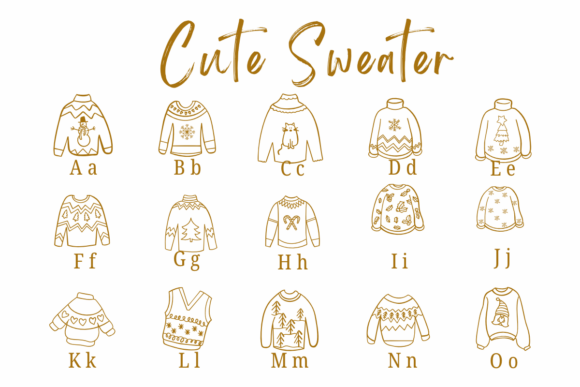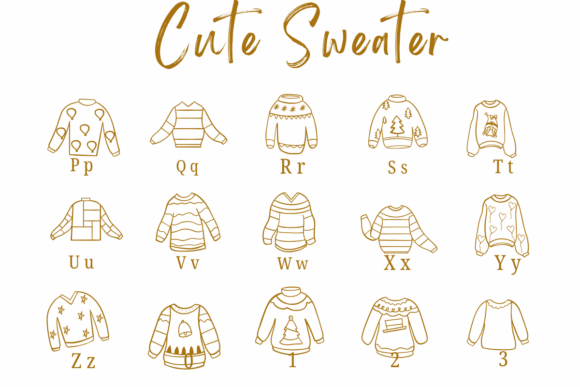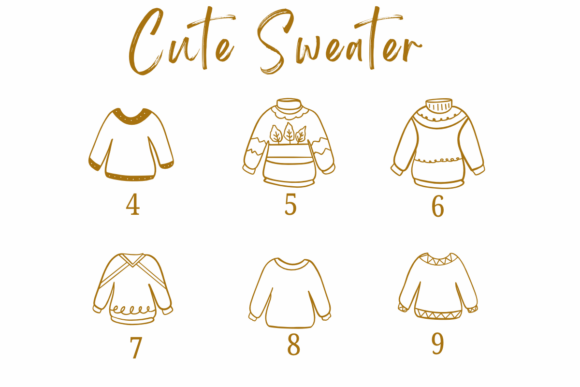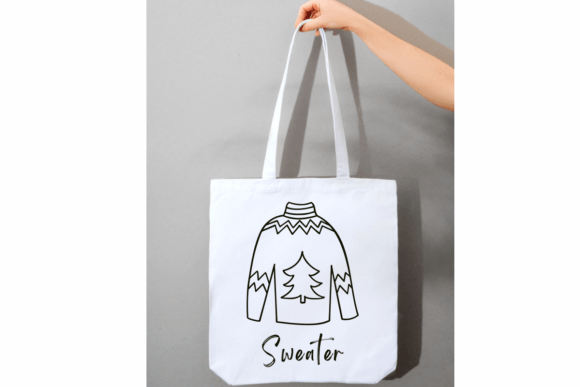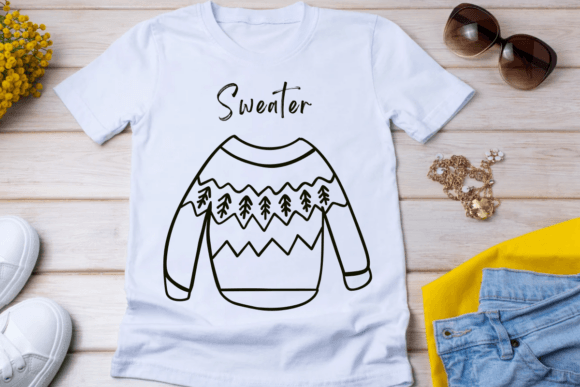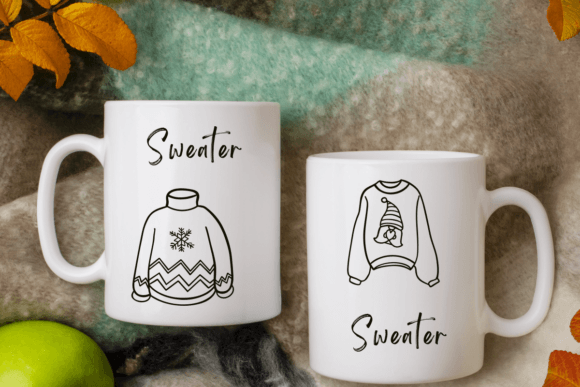
Introduction to Cute Sweater Font
Cute sweater is a dingbats font with theme with a sketch style.
This font can enhance your creative projects such as wedding invitations, DIY, crafts, decorations, logos, and many other creative ideas .
Key Features of Cute Sweater Font
Why Choose Cute Sweater Font?
Cute Sweater Font offers exceptional quality and versatility, making it a valuable addition to your design toolkit. Whether you’re creating for personal projects or commercial use, Cute Sweater Font delivers professional results.